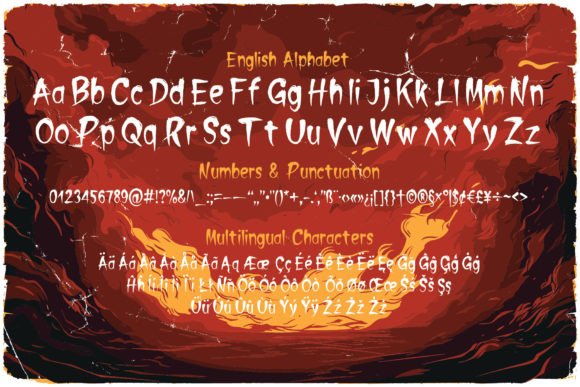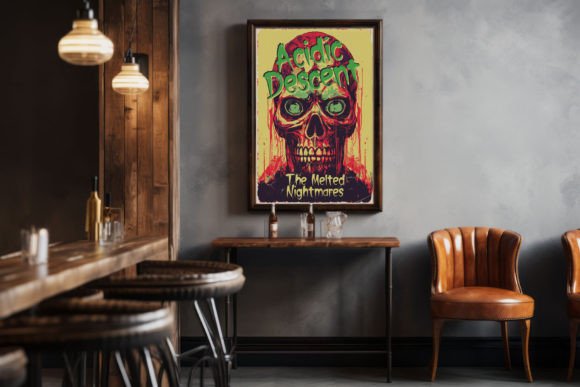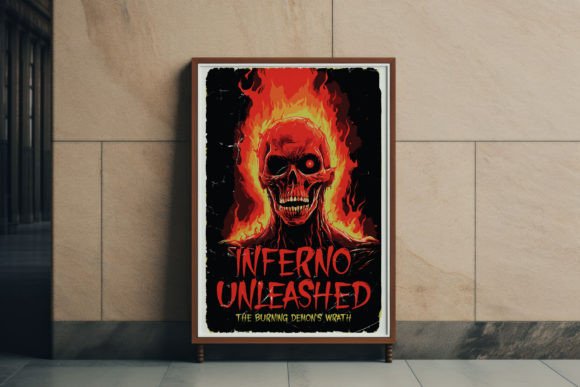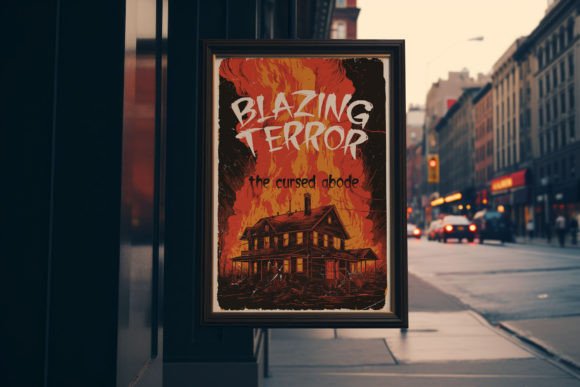
Step into the Flickering World of 80s Horror
Do you remember the thrill of sneaking into a late-night movie theater, surrounded by the eerie glow of a vintage horror film? The suspenseful atmosphere, the creepy characters, and the unforgettable one-liners – it’s a nostalgic experience that still captivates us today. As a designer, you’re always on the lookout for the perfect tool to recreate that magic in your projects.
That’s where the ‘Burnt Dreams Font’ comes in – a meticulously handcrafted font that embodies the essence of 80s horror movie posters. This unique font is designed to transport you back to a bygone era, infusing your designs with an unmistakable crafty touch. With ‘Burnt Dreams Font’, you can elevate your poster designs, t-shirt graphics, and logos to new heights, while seamlessly adapting to different projects with multilingual support and versatile font formats.
Burnt Dreams Font Key Features
- Font Family: Burnt Dreams, a distressed, vintage-inspired font designed to evoke a sense of nostalgia and retro charm.
- Size: The font family includes a range of weights, from Light (100) to Bold (700), allowing for flexible typographic styling and expression.
- Resolution: Designed for high-resolution displays, the font is optimized for use at 300 DPI and above, ensuring crisp and clear rendering on modern screens.
- Unique Characteristics: Distressed textures, worn edges, and subtle imperfections give the Burnt Dreams font its distinctive, hand-crafted feel.
Burnt Dreams Font Review
Overall, I was really excited to dive into the Burnt Dreams Font. It’s a unique and quirky design that immediately caught my attention. ✨ One thing that works well is the way the font handles text flow. It’s incredibly easy to read, even in longer passages.
✨ I also appreciate the thoughtful design of the font’s ligatures and letter spacing. It adds a nice touch of personality to any text that uses it.
✨ Another positive aspect is the variety of font weights and styles available. This makes it easy to customize the font to fit different design needs.
- ⚠️ The font’s irregular shape and texture can be a bit overwhelming in certain contexts. It’s best used in designs where a bold, eye-catching effect is desired.
- ⚠️ Some users may find the font’s ligatures and letter spacing to be too experimental or unconventional. This could be a drawback for those who prefer more traditional typography.
- ⚠️ The font’s limited language support may be a concern for designers working on international projects.
Overall, the Burnt Dreams Font is a great choice for designers who want to add a unique touch to their work. While it may have some limitations, its bold personality and thoughtful design make it a great addition to any font collection.
The Burnt Dreams Font is perfect for creative projects that require a unique and eye-catching look. Some common use cases include:
- Designing logos or brand identities
- Creating custom graphics or icons
- Adding a touch of elegance to presentations or documents
- Designing wedding invitations or other special occasion materials
To get the most out of the Burnt Dreams Font, experiment with different font sizes, colors, and effects to create a unique and eye-catching look. You can also use layer blending modes and effects to create a distressed or worn look. Don’t be afraid to try new things and push the limits of what’s possible with this font.